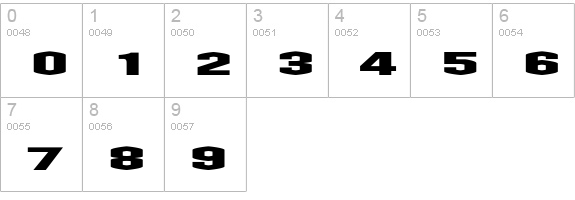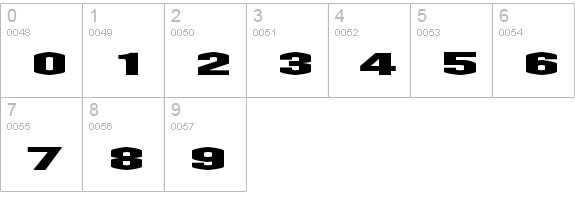
Introducing CollosExtended, a striking and versatile font that exudes elegance and sophistication. With its clean lines, sharp edges, and modern aesthetic, CollosExtended is perfect for a wide range of design projects, from branding to editorial design to web design. Its extended letterforms add a touch of drama and flair, making it a standout choice for any creative endeavor. Best of all, CollosExtended is completely free to download at FontsMarket.com. This means you can add this stunning font to your collection without any cost, allowing you to elevate your designs without breaking the bank. Don't miss out on the opportunity to enhance your projects with the beauty and style of CollosExtended – download it today and let your creativity shine!